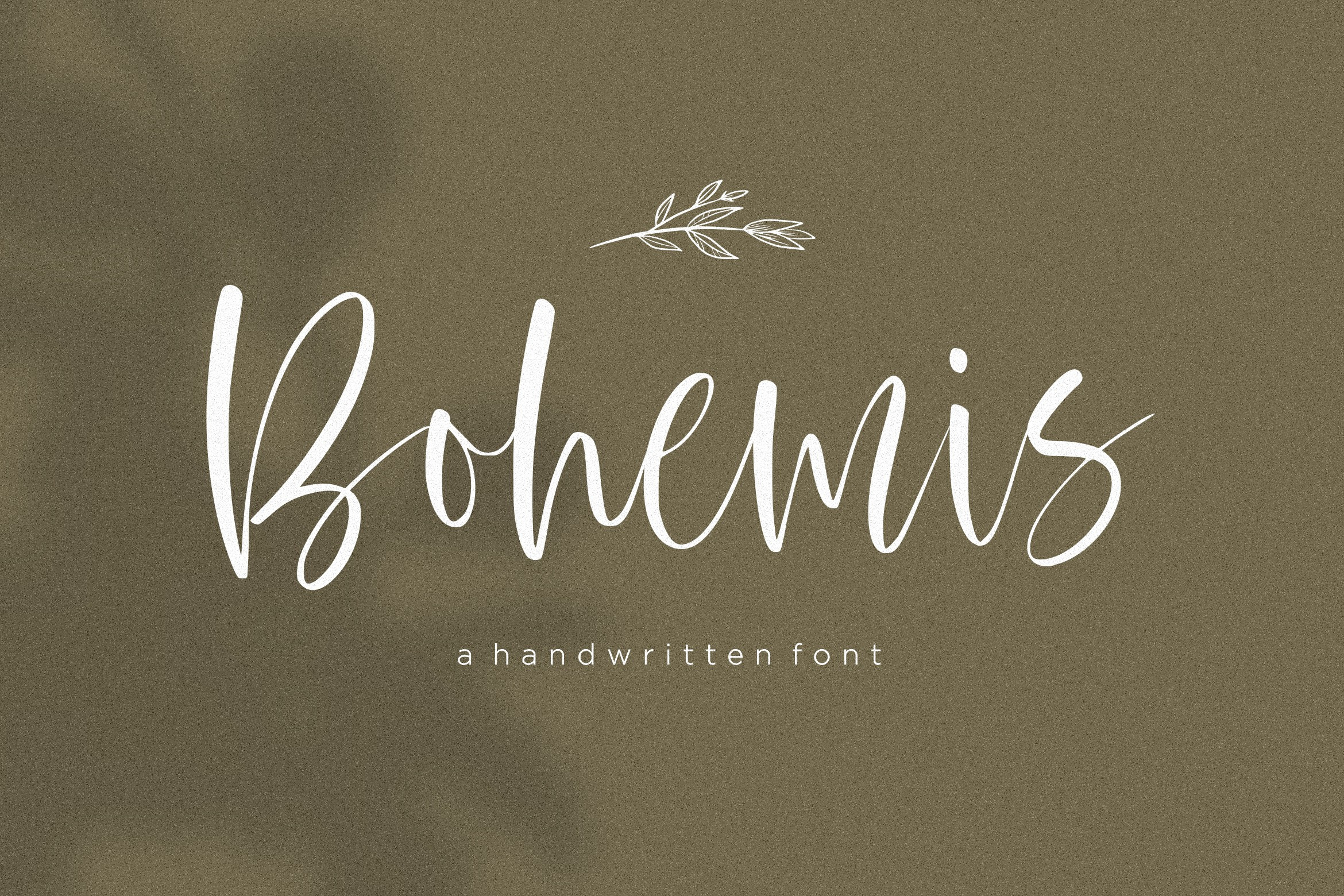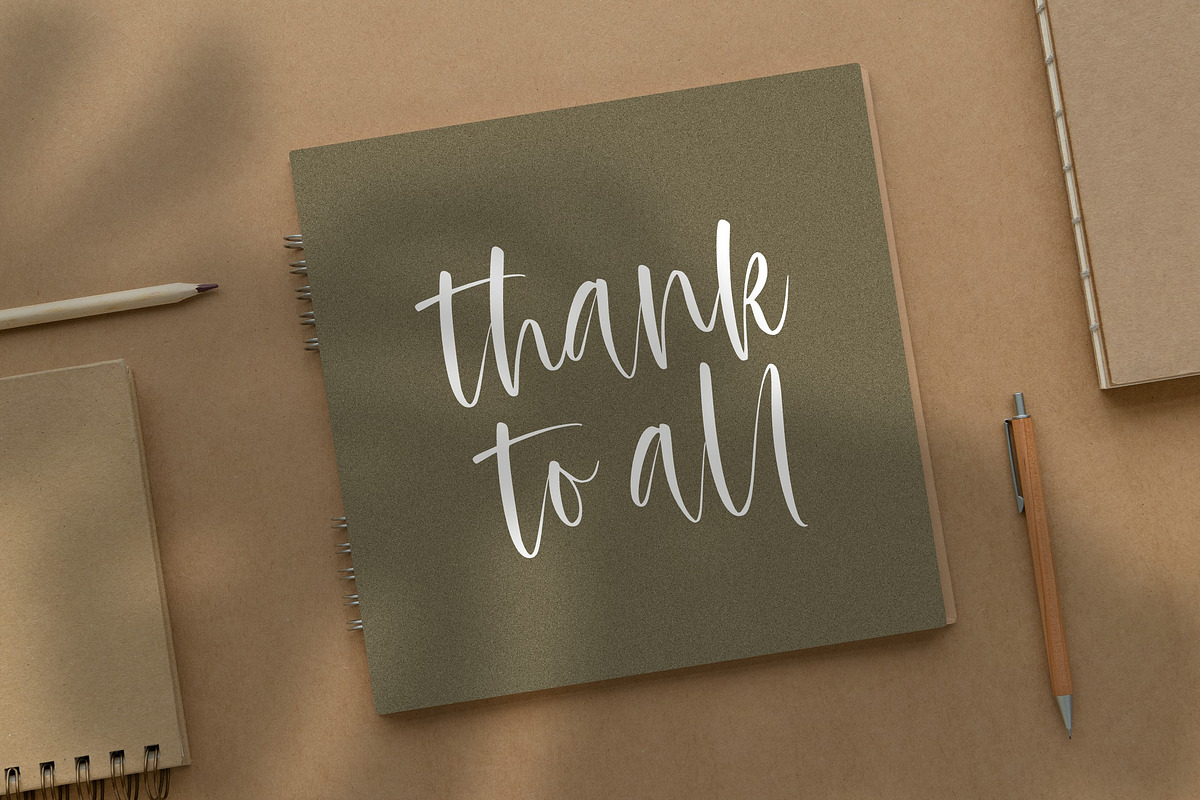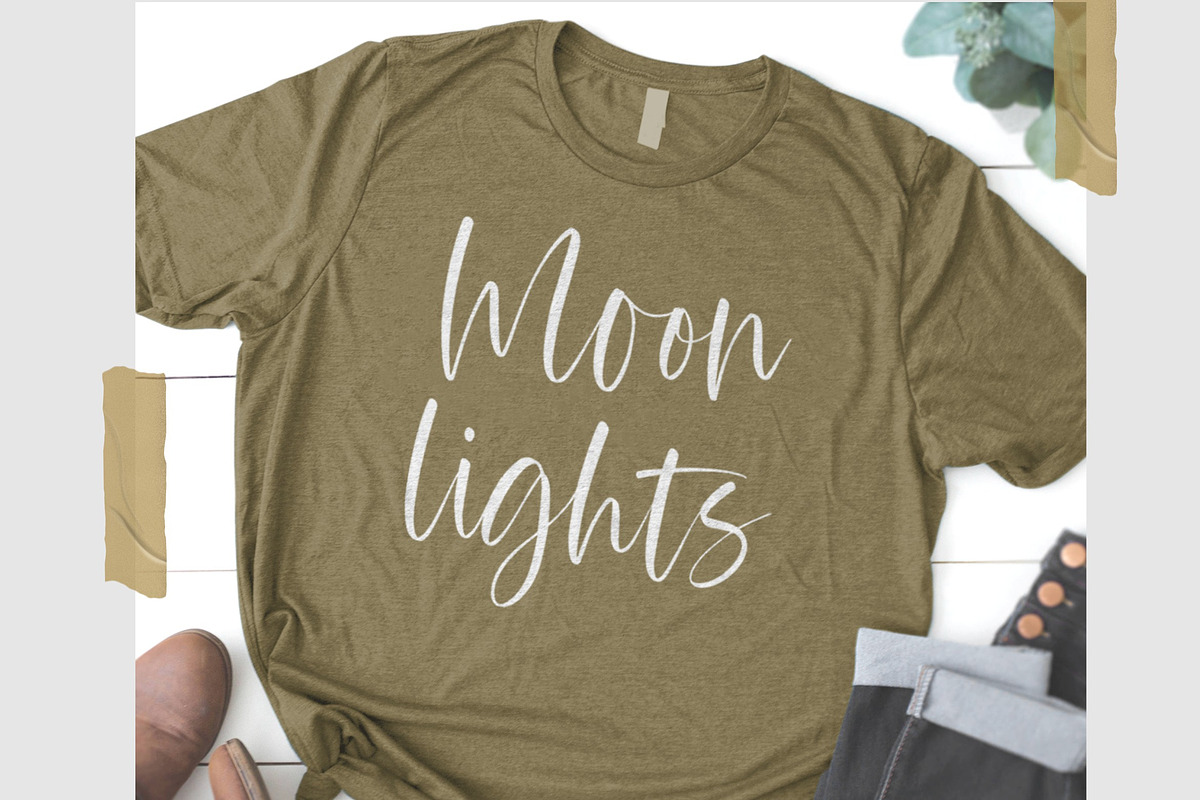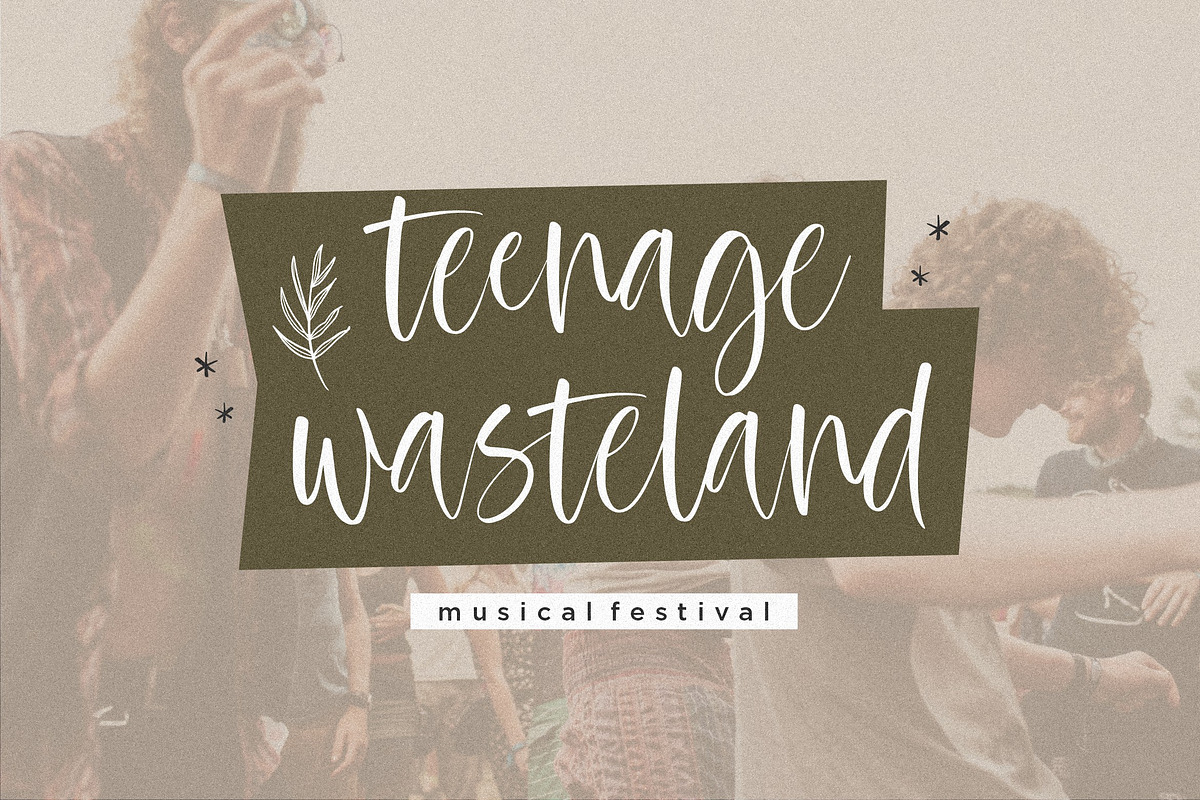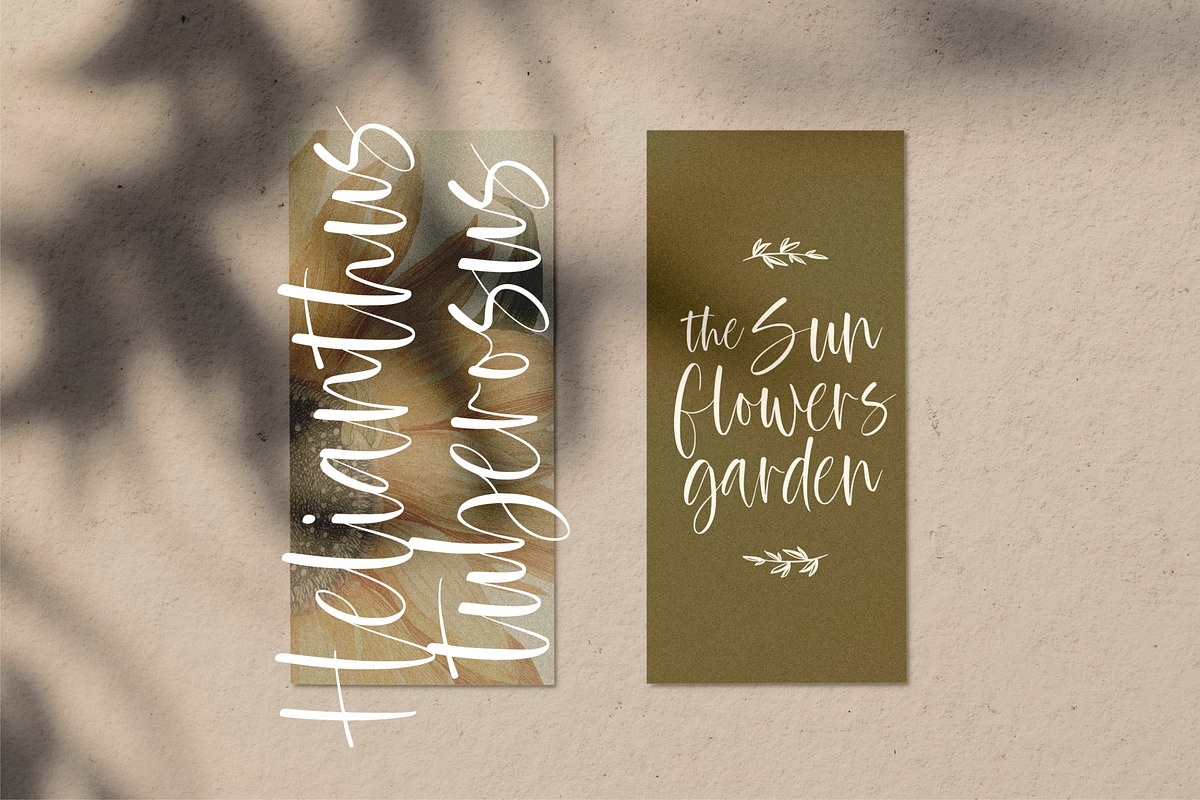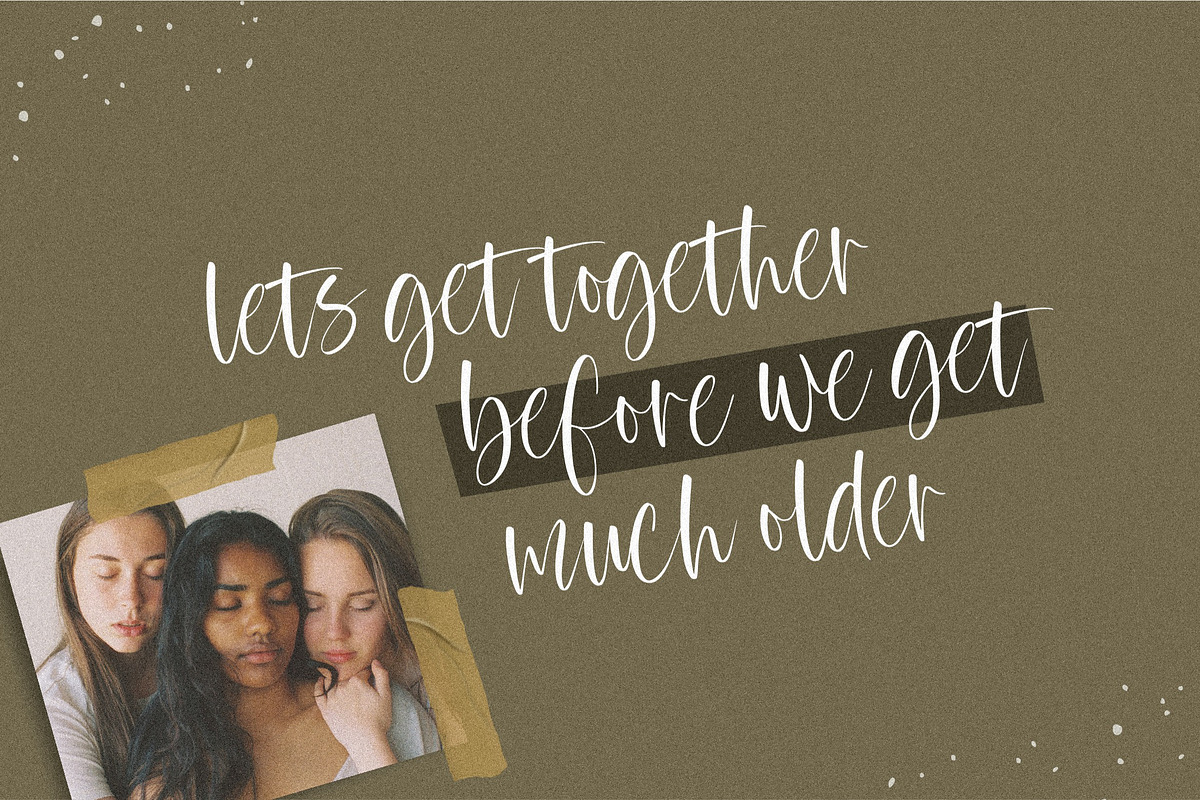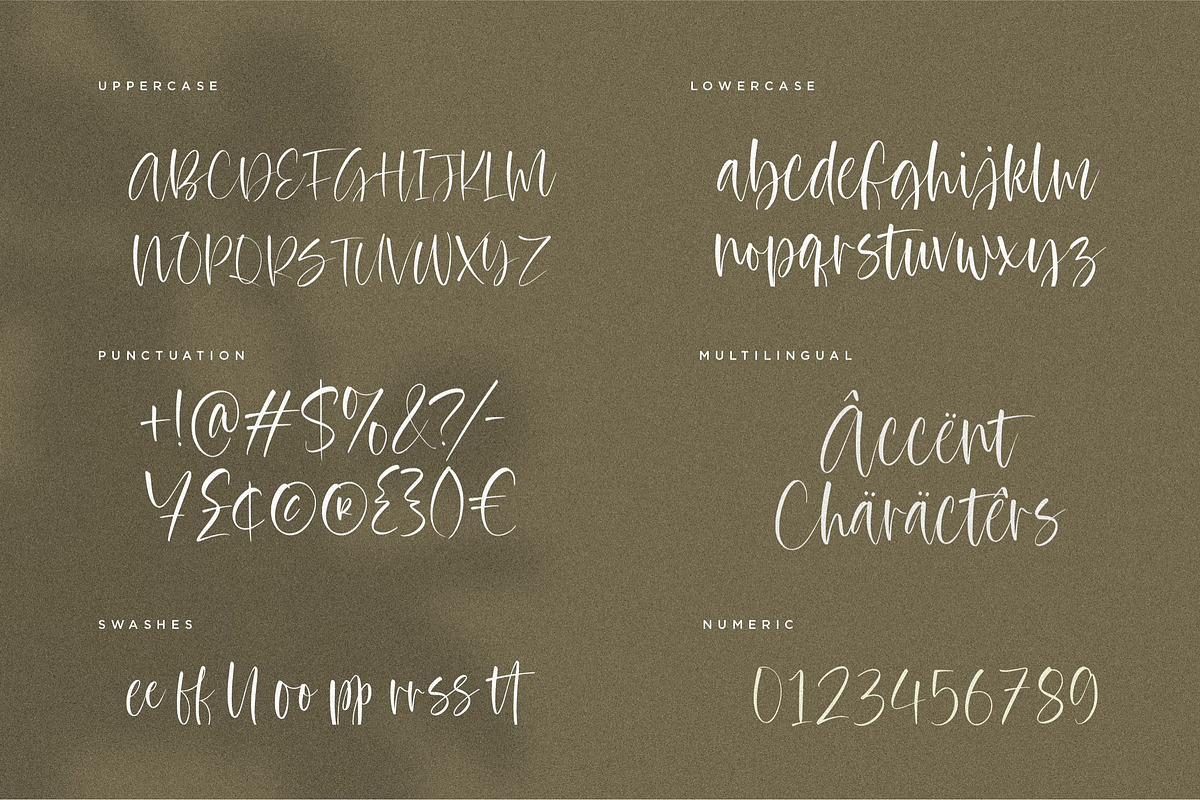
Bohemis Handwritten Font
Introducing Bohemis Font!
Bohemis is charming and sweet handwritten font. This font is suitable for handwriting logos, T-shirts, merchandise, quotes, social media posts, advertising, and a lot more!
Bohemis comes with an accent language.